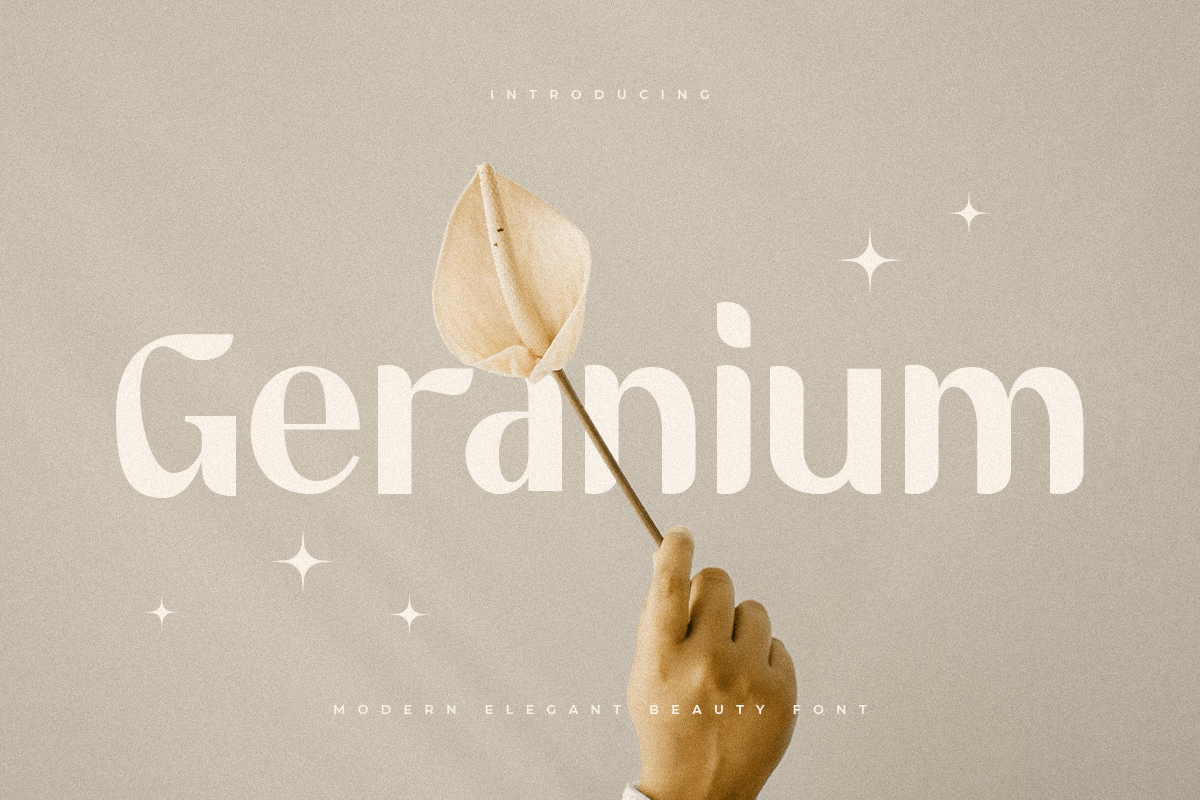
Geranium
geranium
Geranium
Geranium is Modern Elegant Beauty Font is a well-balanced contemporary font with a Elegant, fancy, unique, and versatile Luxury serif, font that you can combine to get any variations and unique shapes easily just in seconds with choose alternates of them. It is a serif display font with moderate contrast that perfect for branding projects, logo, wedding designs, social media posts, advertisements, product packaging, product designs, label, photography, watermark, invitation, stationery, and any projects, it makes with a high level of legibility.